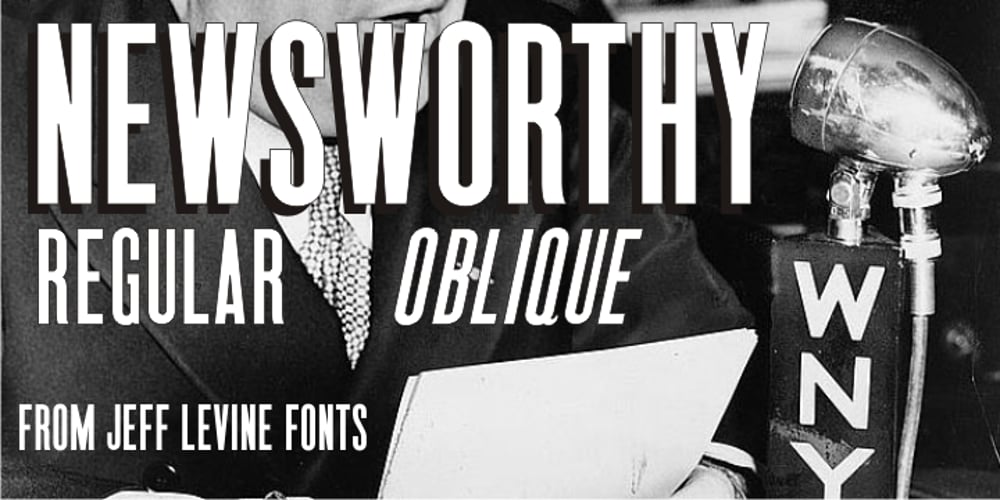
Newsworthy JNL
Newsworthy JNL font
Newsworthy JNL Font Family was designed by Jeff Levine and published by Jeff Levine. Newsworthy JNL contains 2 styles and family package options. Newsworthy JNL and its oblique counterpart are variations on the ever-popular condensed type styles used for newspaper and tabloid publications.